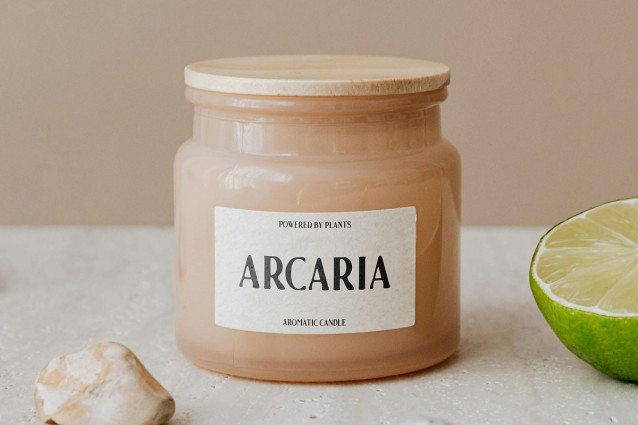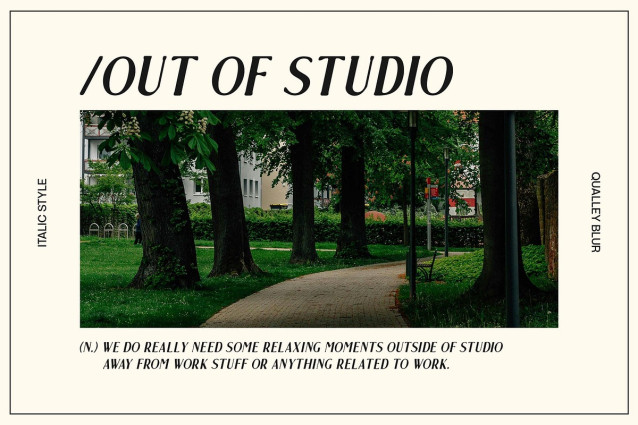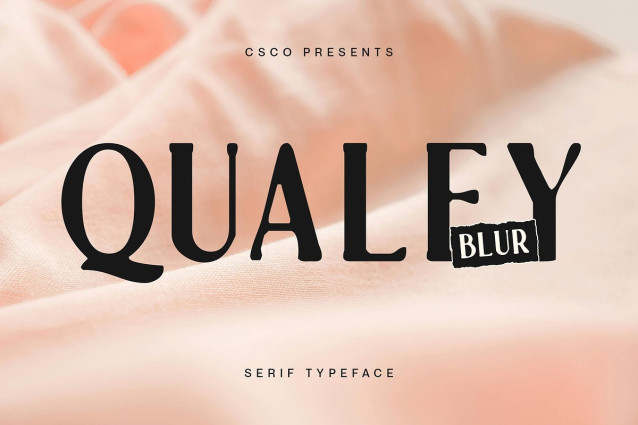
Qualey Blur Font
Qualey Blur Font is a modern serif font that blends clean lines and refined serifs with a subtle blur effect, creating a beautifully soft and dreamlike appearance. Its sharp, minimalist structure maintains a classic sophistication, while the hazy edges introduce a creative twist that feels both modern and artistic.
Aesthetic Balance of Clarity and Softness This font strikes a unique balance—where crisp, elegant forms meet a gentle, atmospheric blur, resulting in a look that’s both graceful and expressive. The contrast between sharp details and diffused edges evokes a feeling of calm sophistication and visual intrigue, making it stand out in refined yet experimental design contexts.
Perfect for Creative Luxury and Editorial Use Qualey Blur is an ideal choice for luxury branding, high-end packaging, fashion editorials, visual identity systems, and creative design projects seeking to elevate their presentation. Its soft blur effect gives it a distinct artistic character.
A Typeface for Sophisticated Expression Whether used in headlines, titles, or stylish compositions, Qualey Blur offers a visually rich and polished presence. It invites the viewer to pause, observe, and appreciate both the clarity and the mystery within the design—perfect for those who want to convey sophistication with a creative edge.